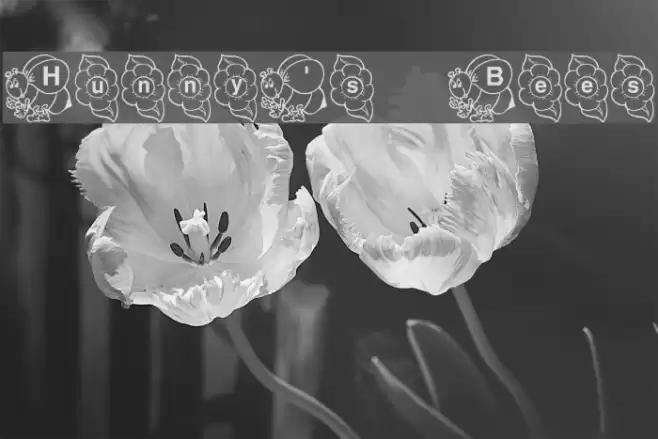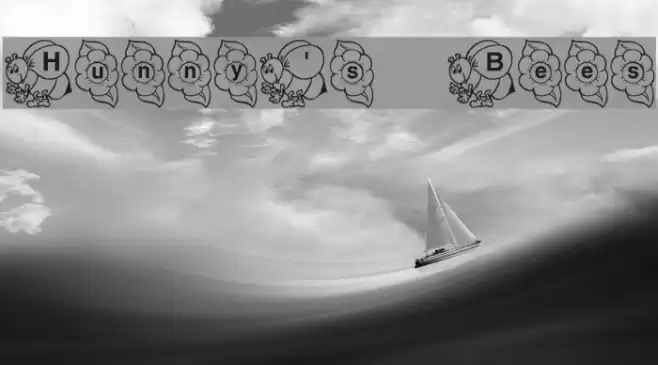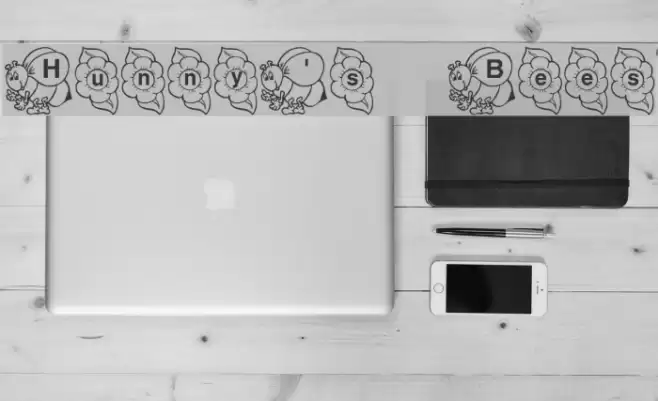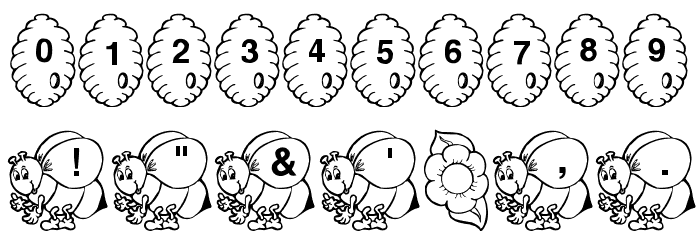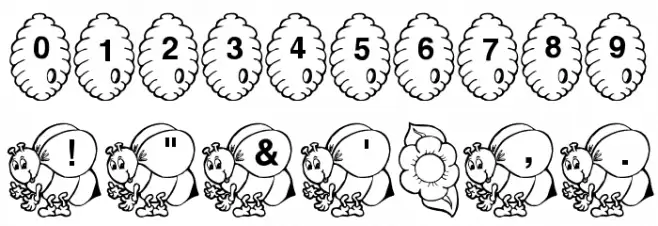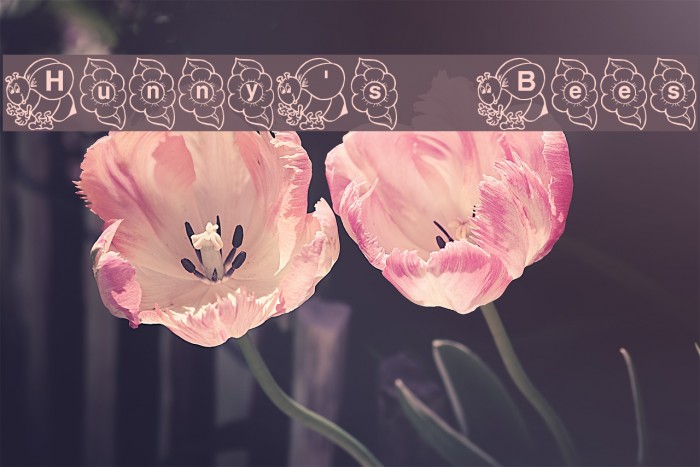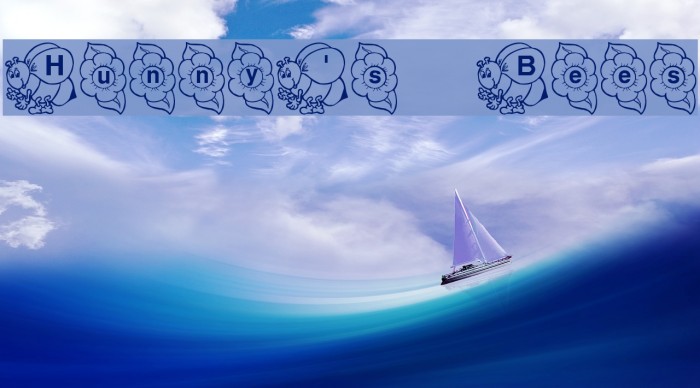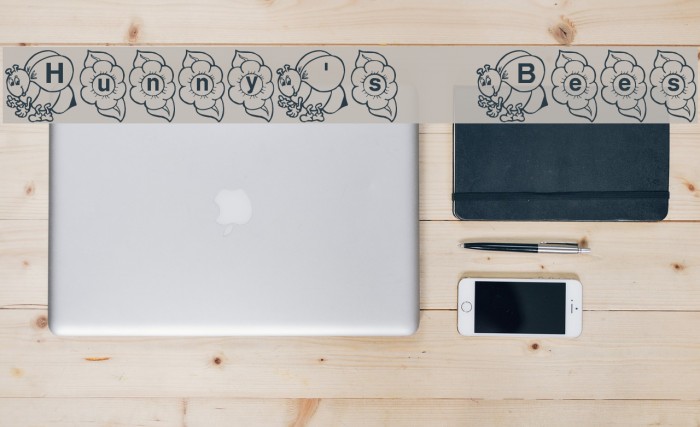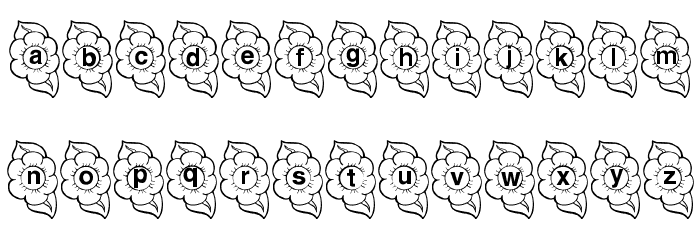
Hunny's Bees Font
Hunny's Bees Description
This whimsical and decorative font features each character enclosed within a playful bee and flower motif. The design is intricate, with each letter and number surrounded by detailed illustrations that add a charming and lively touch. The uppercase and lowercase letters maintain a consistent style, while the numbers and special characters are similarly adorned with bee-themed decorations. This font is perfect for projects that require a fun and engaging visual element, making it ideal for children's materials, playful branding, or themed events.
A decorative font with bee and flower motifs encasing each character from Uncategorized fonts.
- Proposed Projects: Ideal for children's books, playful branding, themed party invitations, and educational materials.
- Use Case: Headlines, Logos, Invitations